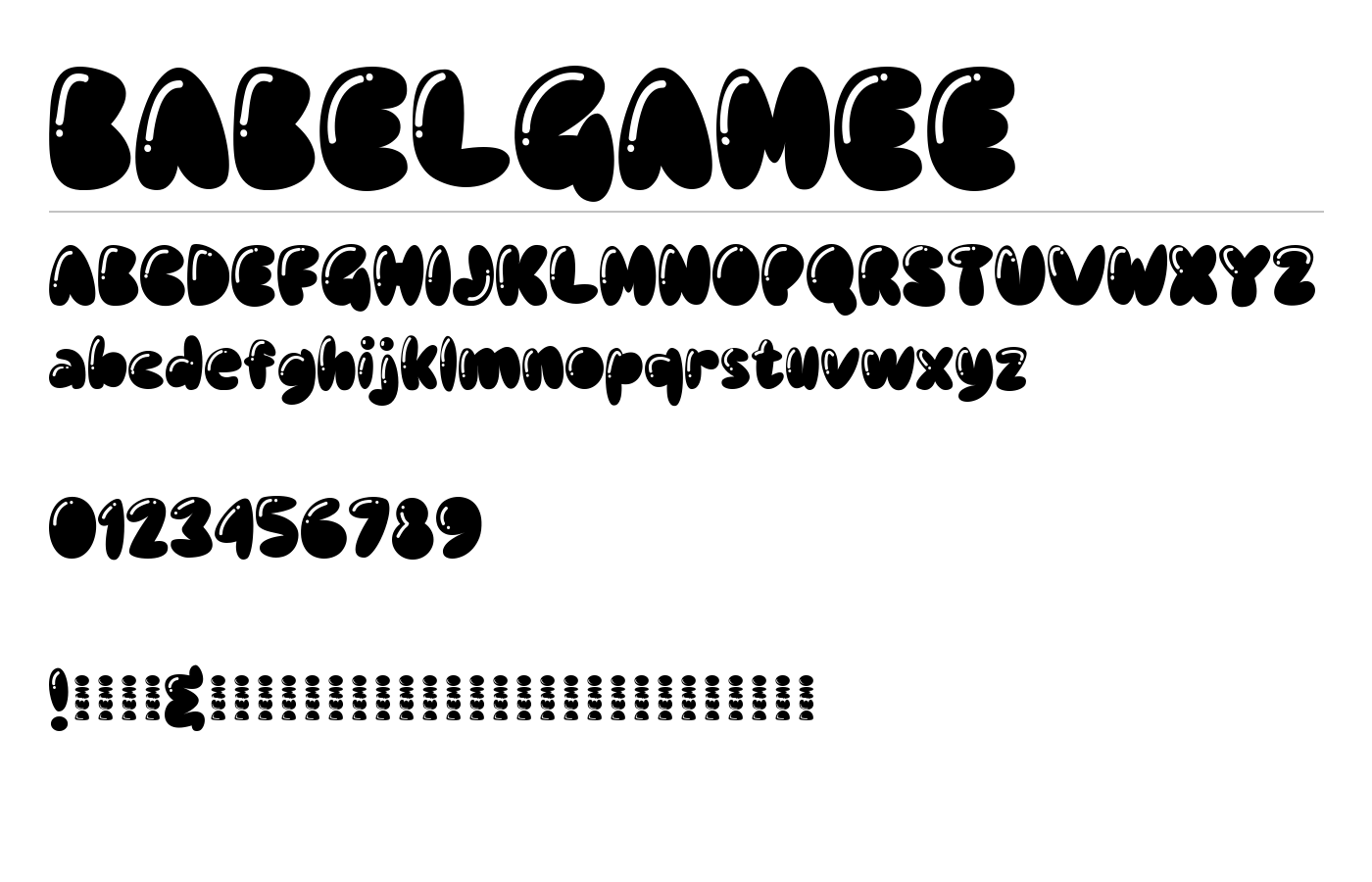
BABELGAMEE is a playful and bold display font characterized by its thick, rounded shapes and bubbly style, making it perfect for creative and fun projects. Its heavy weight and whimsical letterforms with shiny highlights give it a friendly and energetic vibe, ideal for logos, posters, and children’s content where a lively, eye-catching aesthetic is desired. This font works best in large sizes to showcase its unique personality and charm.
BABELGAMEE Font
About BABELGAMEE Font
| Font family | BABELGAMEE Font |
| Designer | sahirul iman - alexatype |